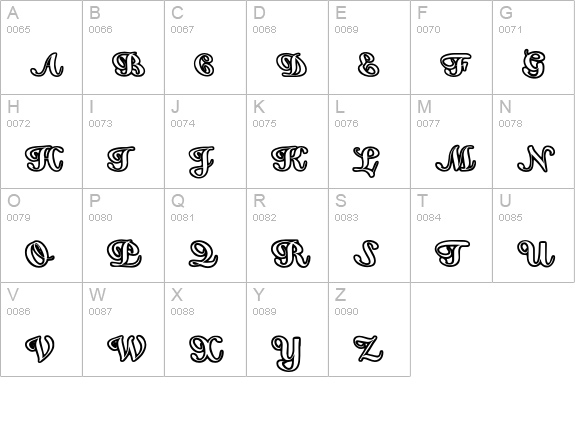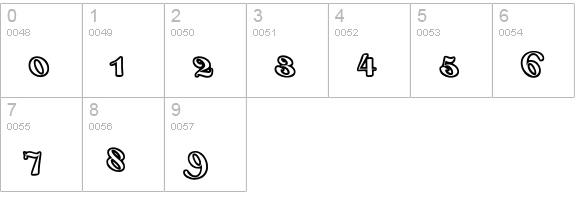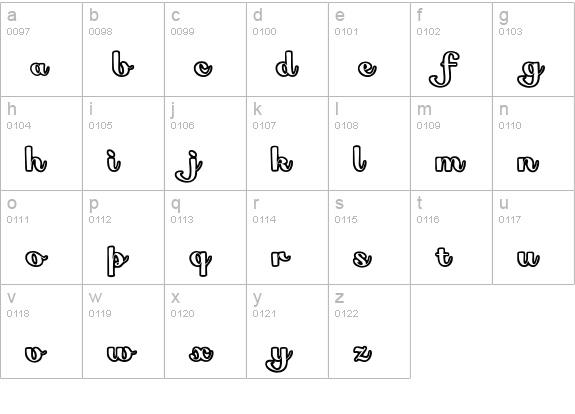
False-Negative Font Details
The False-Negative font is a striking and modern typeface designed to make a bold statement in your design projects. With its sleek lines and contemporary feel, this font is perfect for creating eye-catching logos, headlines, and more. The False-Negative font exudes sophistication and elegance, making it a versatile choice for a wide range of design applications. What sets the False-Negative font apart is its ability to convey a sense of strength and confidence while maintaining a sense of style and sophistication. Whether you're designing a sleek corporate identity or a trendy fashion magazine layout, this font is sure to make a lasting impression. Best of all, the False-Negative font is freely available for download at FontsMarket.com. So why wait? Add this stunning font to your collection today and take your design projects to the next level!